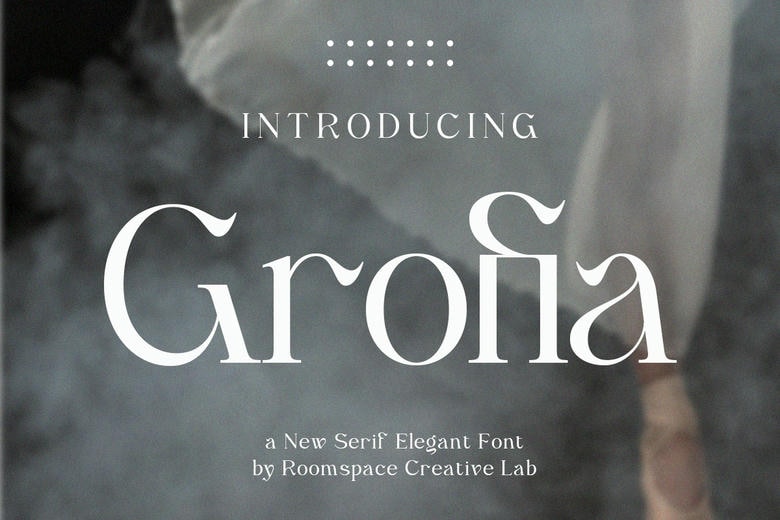
Grofia Font
Grofia is a Serif and beautiful typeface that will enhance every of your creative endeavours. it consists of several terminal details that look like waves and has this luxurious look, making it suitable for branding, and other things such as editorial designs and packaging and beyond. Grofia Serif houses an equal combination of class and modernity making it suitable to enhance the elegance of any design.
Grofia Serif Font